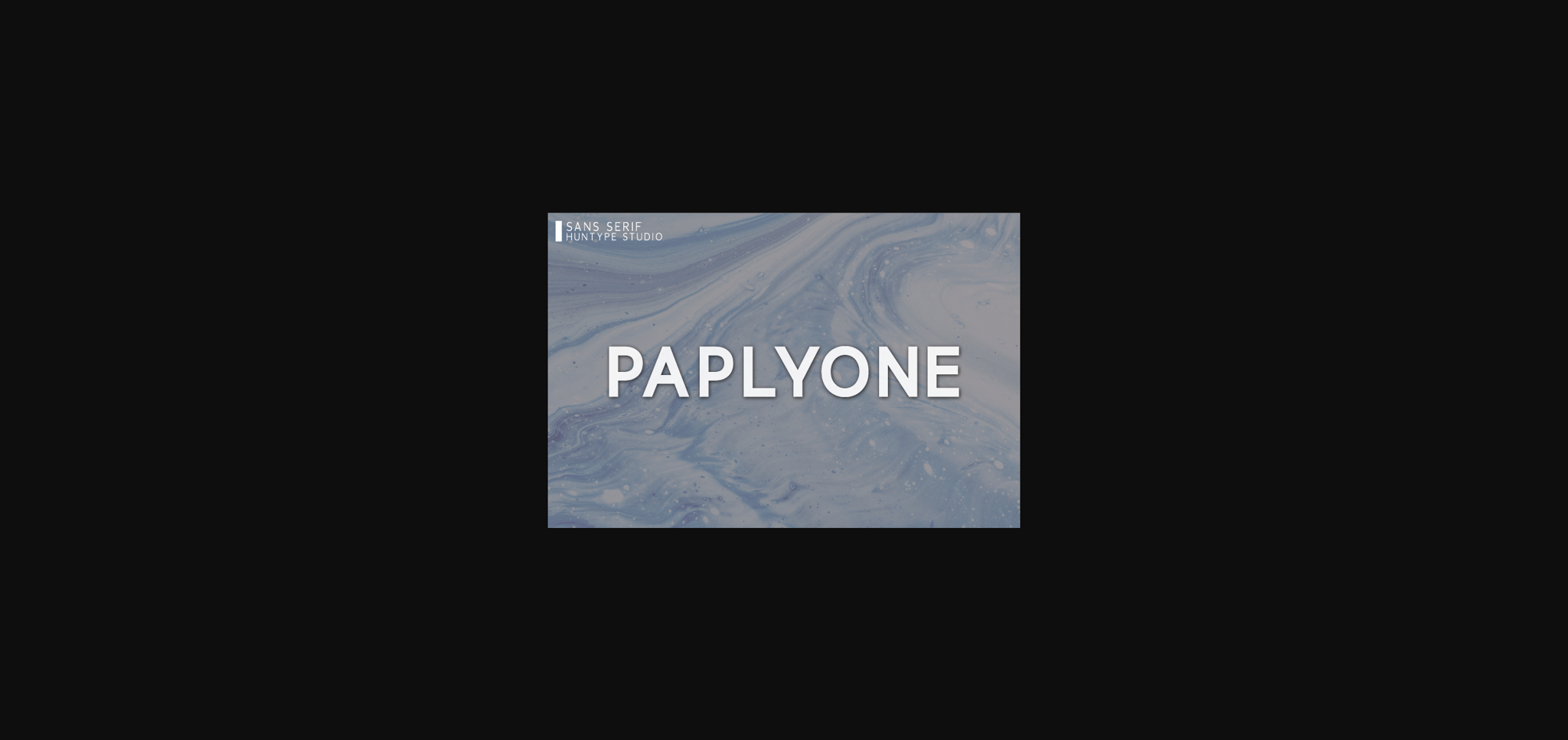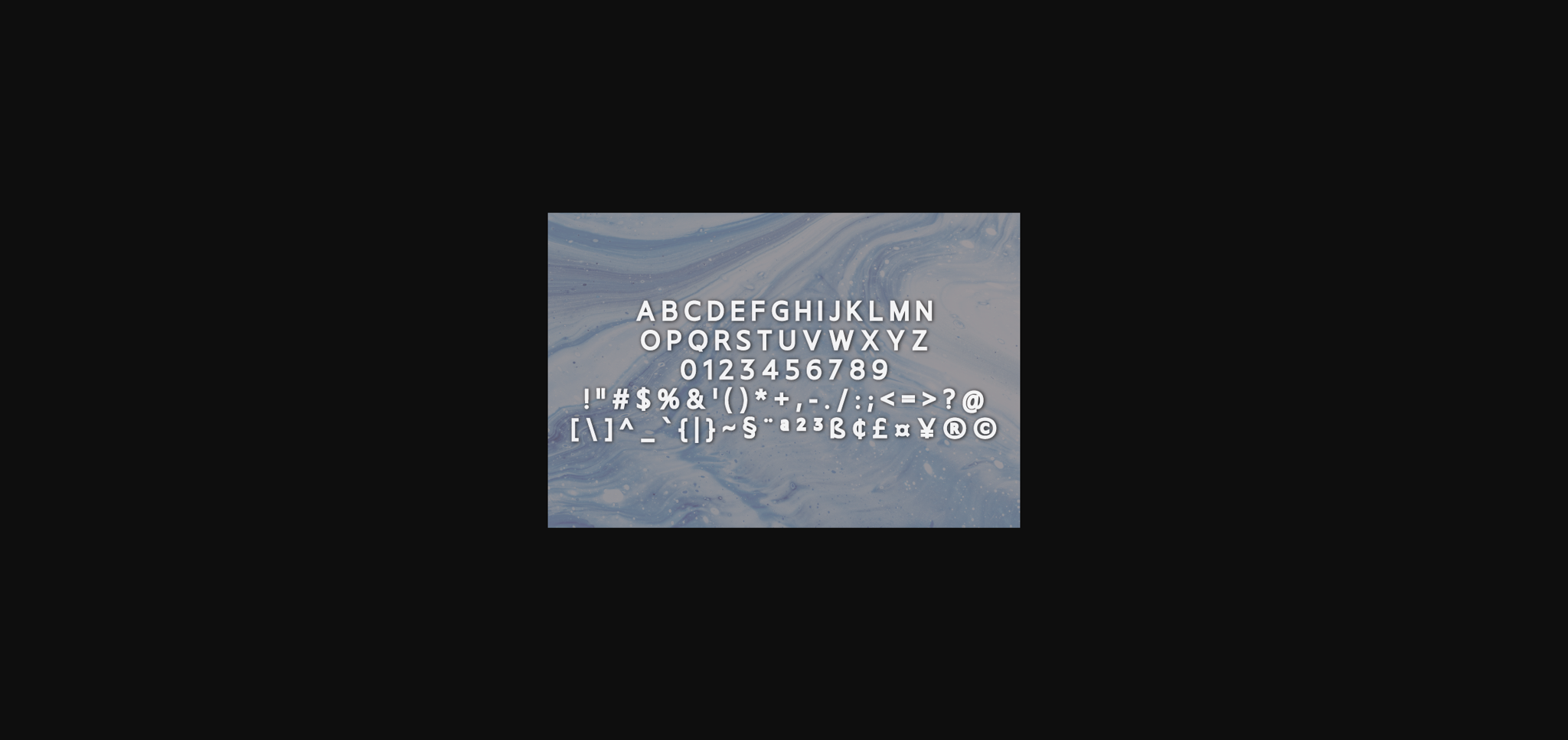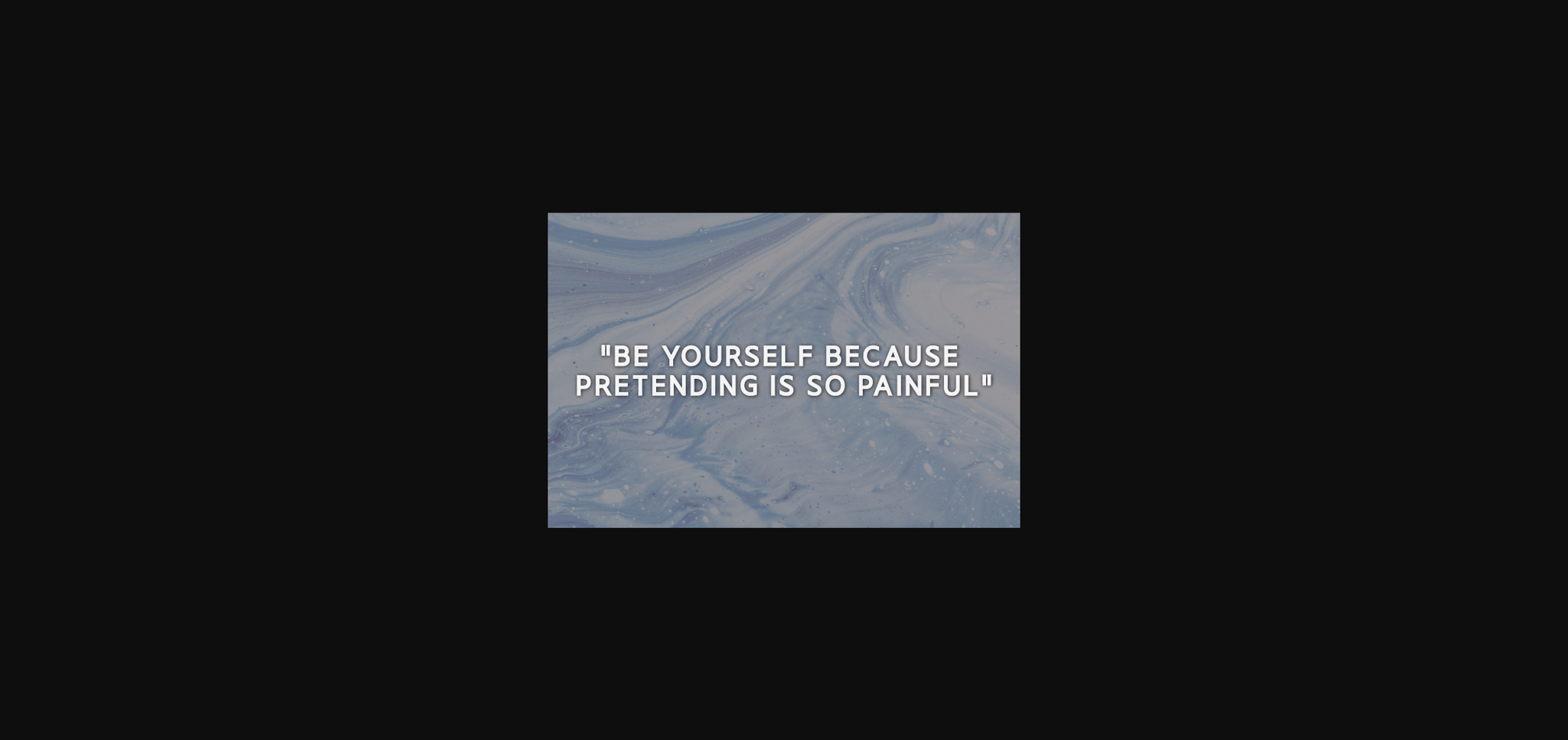
Paplyone Font
About Paplyone Font
Paplyone is a simple and neat sans serif font. It can easily be matched to an incredibly large set of projects, so add it to your creative ideas and notice how it makes them stand out!